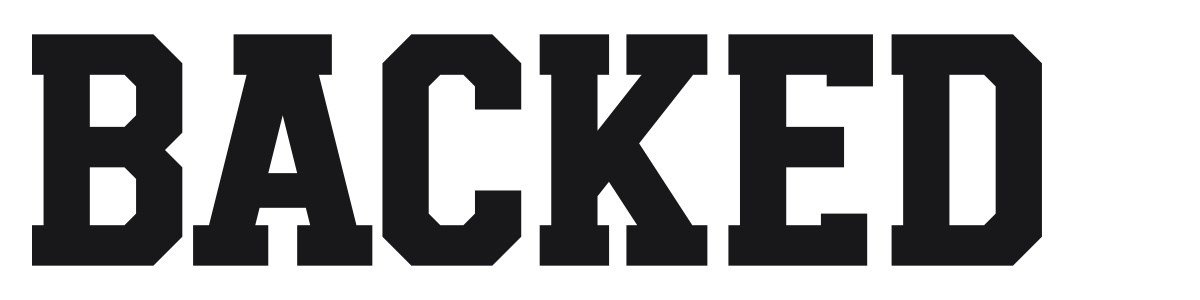
Backed
Backed is a bold collegiate slab-serif rooted in American varsity lettering traditions. Its thick strokes, rectangular slabs, and condensed proportions pack a lot of weight into a compact frame. The design reads instantly as athletic and team-oriented, making it a natural choice for jerseys, sports branding, and anything that needs to project strength.